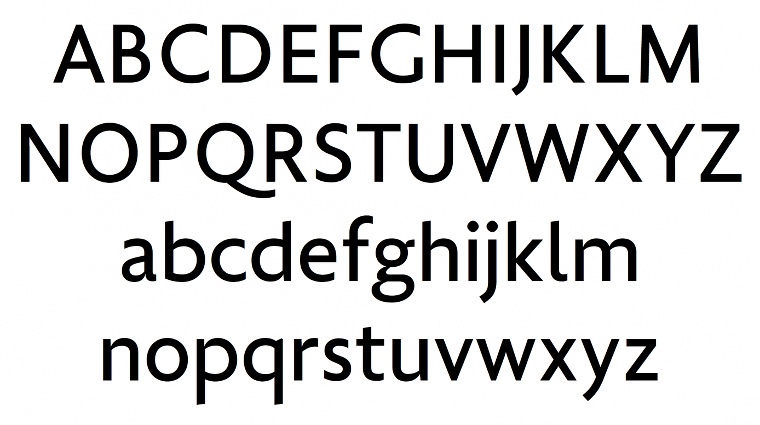
FAZ Gold Sans Custom Font
FAZ Gold Sans Custom Font is perfect for luxury financial services, premium investment firms, exclusive wealth management companies, high-end banking institutions, sophisticated precious metals dealers, and elite financial consulting organizations. Its golden character makes it ideal for luxury portfolio management, exclusive private banking, premium financial advisory services, high-net-worth client communications, sophisticated investment platforms, and any project requiring financial excellence with golden prestige and exclusive wealth appeal.
This font is exciting because it embodies the ultimate expression of financial success and golden prosperity while delivering exceptional functionality for organizations serving the most discerning wealthy clientele and exclusive financial markets. The luxuriously crafted letterforms radiate the confidence and prestige that comes with golden financial achievement, creating typography that instantly communicates wealth, exclusivity, and the kind of premium financial services that successful individuals demand.
The FAZ Gold Sans Custom Font family typically includes Light, Regular, Medium, and Bold weights with luxury alternates, golden ligatures, and premium elements that enhance its exclusive personality. This comprehensive collection enables financial professionals to create prestigious brand systems that maintain wealth credibility while offering flexibility for various luxury financial applications requiring both golden authority and contemporary high-end market positioning.
Whether you're developing identity systems for luxury financial institutions, creating materials for exclusive wealth management services, or designing promotional content for premium investment organizations, FAZ Gold Sans Custom Font Free Download delivers the golden prestige and financial sophistication that resonates with high-net-worth audiences seeking exclusive financial excellence and premium wealth services. Its luxurious presence ensures distinguished brand recognition across digital platforms and print materials, making it perfect for websites, mobile applications, and financial campaigns that celebrate golden success, exclusive wealth, and the transformative power of premium financial expertise with contemporary luxury standards and authentic golden excellence.